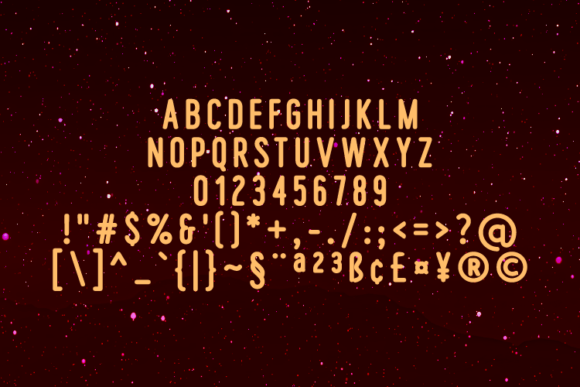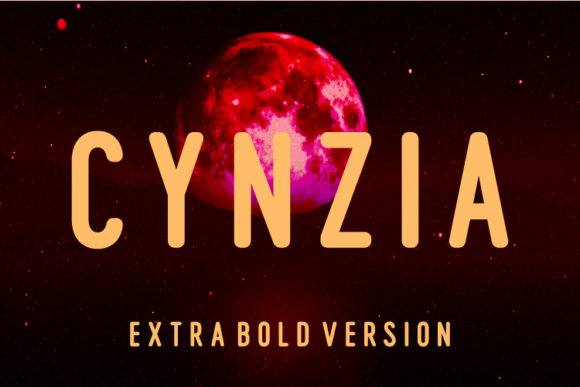
Cynzia Extra Bold Font: A Condensed Geometric Sans Serif with a Lunar Twist
In the realm of typography, fonts play a crucial role in conveying messages, evoking emotions, and creating visual identities. Among the numerous typefaces available, Cynzia Extra Bold Font stands out for its unique blend of geometric precision and rounded elegance. Inspired by the soft curves of a moon, Cynzia brings a distinctive character to the world of sans serifs, making it an ideal choice for designers and crafters seeking a font that combines subtle softness with a sharper appearance.
The Genesis of Cynzia: A Geometric Sans Serif with a Lunar Inspiration
Cynzia’s design roots lie in geometric sans serifs, a category of typefaces known for their clean lines, circular forms, and minimalist aesthetic. However, what sets Cynzia apart is its incorporation of rounded corners, reminiscent of the moon’s gentle curves. This fusion of geometric precision with lunar softness results in a typeface that is not only visually striking but also highly versatile.
The tops and bottoms of Cynzia’s characters feature circular forms, a nod to its geometric sans serif influences. Yet, its proportions have been carefully condensed by integrating straight sides, yielding a design that is both sturdy and economical. This thoughtful balance of curves and straight lines enables Cynzia to convey a sense of stability while maintaining a sleek, modern appearance.
Cynzia’s Design Characteristics: A Blend of Softness and Sharpness
Cynzia’s design is characterized by several key features that make it an attractive choice for a wide range of design projects:
- Condensed Proportions: Cynzia’s condensed design makes it ideal for use in headlines, titles, and other applications where space is limited. Its compact form allows for efficient use of space without sacrificing readability.
- Geometric Precision: The font’s geometric underpinnings lend it a sense of precision and accuracy, making it suitable for use in designs that require a clean, modern aesthetic.
- Rounded Corners: The rounded corners of Cynzia’s characters introduce a touch of softness, preventing the font from feeling too harsh or industrial.
- Versatility: Cynzia’s unique blend of geometric and rounded elements makes it a versatile choice for various design applications, from digital interfaces to print materials.
Applications of Cynzia Extra Bold Font: Where to Use This Unique Typeface
Cynzia’s distinctive character makes it an excellent choice for a variety of design projects, including:
- Headlines and Titles: Cynzia’s bold, condensed design makes it perfect for use in headlines and titles, where it can grab attention and convey information efficiently.
- Branding and Identity: The font’s unique blend of geometric and rounded elements makes it an excellent choice for branding and identity projects, where it can help create a distinctive visual identity.
- Digital Interfaces: Cynzia’s clean, modern aesthetic makes it well-suited for use in digital interfaces, including websites, mobile apps, and software.
- Print Materials: The font’s versatility also makes it suitable for use in print materials, such as brochures, posters, and business cards.
Conclusion: Elevate Your Designs with Cynzia Extra Bold Font
In conclusion, Cynzia Extra Bold Font is a unique and versatile typeface that offers a distinctive blend of geometric precision and lunar softness. Its condensed design, rounded corners, and geometric underpinnings make it an excellent choice for designers and crafters seeking a font that can add a touch of elegance and sophistication to their projects. Whether used in headlines, titles, branding, or digital interfaces, Cynzia is sure to deliver both subtle softness and a sharper appearance, making it an invaluable addition to any designer’s toolkit.